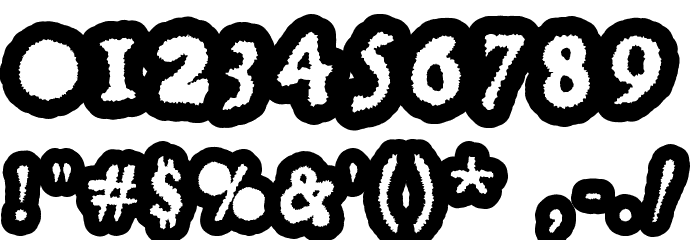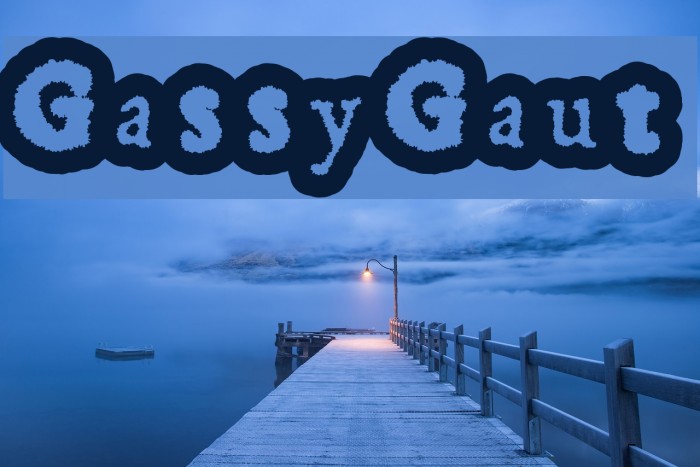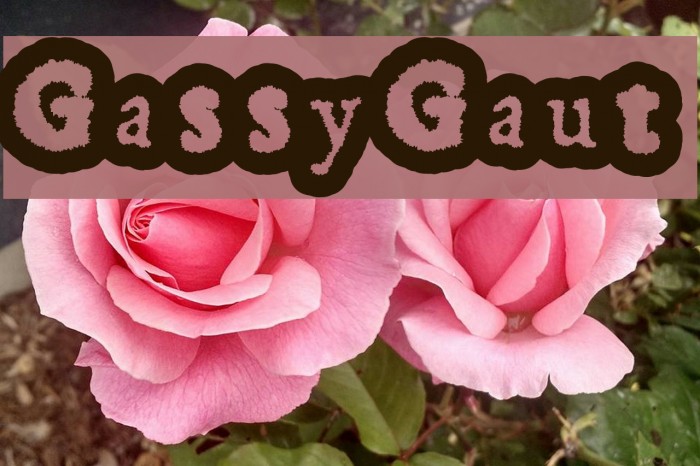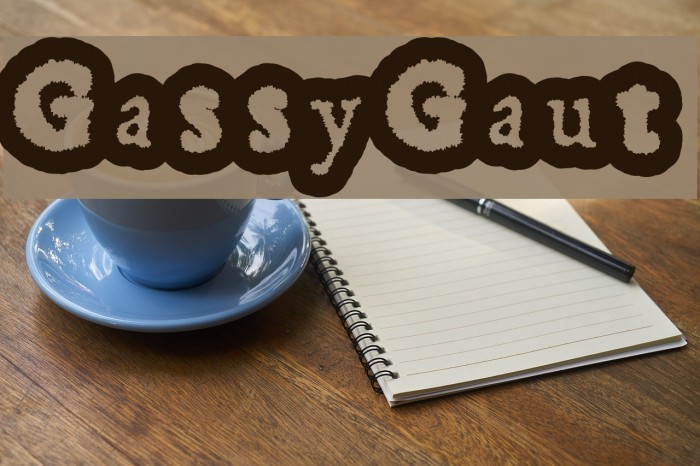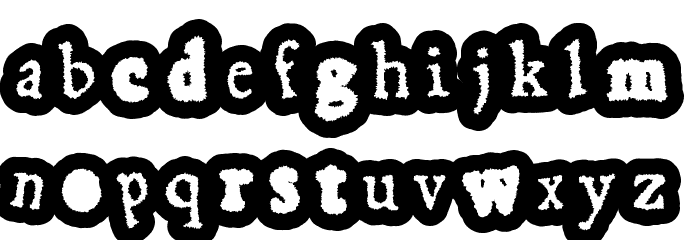
GassyGaut Font
GassyGaut Description
This font features a playful and bold design with a unique, bubbly outline that gives each character a distinct, eye-catching appearance. The letters are heavily stylized with a thick, irregular border that creates a sense of movement and energy. The interior of each character is filled with a contrasting texture that adds depth and visual interest. This font is perfect for projects that require a fun and dynamic look, such as children's books, party invitations, or playful branding. The numbers and special characters maintain the same lively style, ensuring consistency across all text elements.
A playful, bold font with bubbly outlines and textured interiors from Outline fonts.
- Proposed Projects: Ideal for children's books, party invitations, playful branding, and eye-catching posters.
- Overall Style: Playful, Energetic